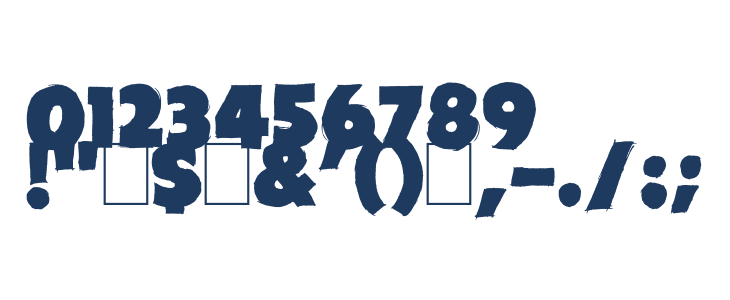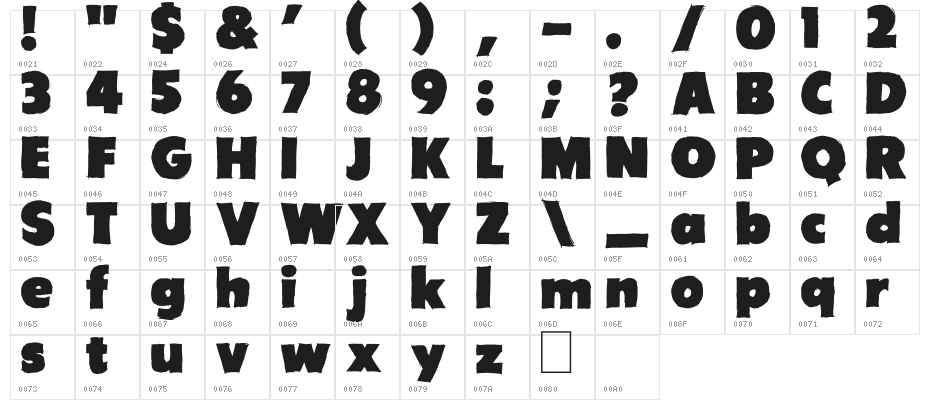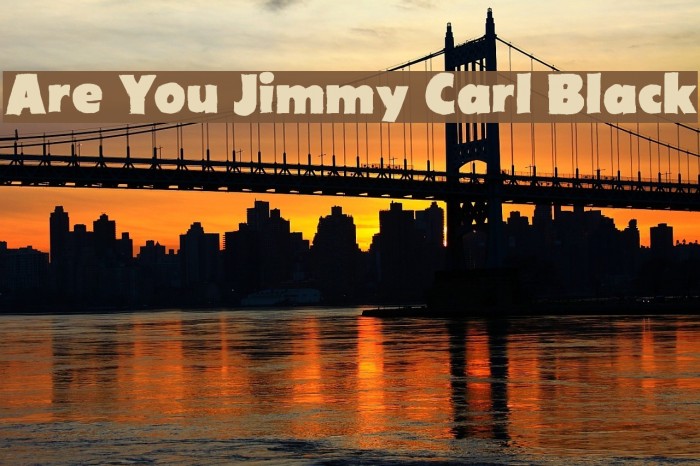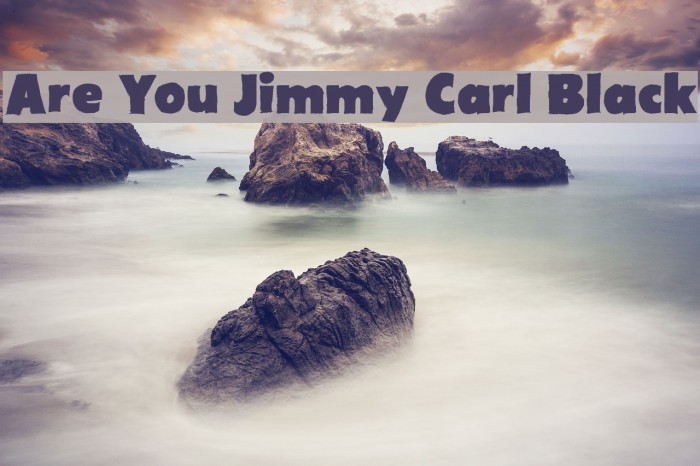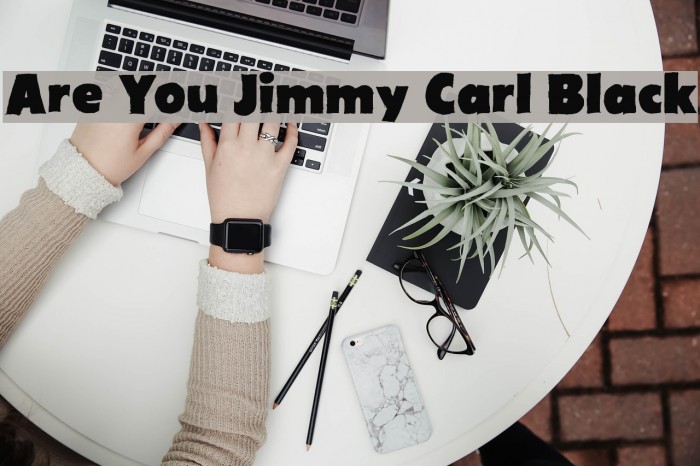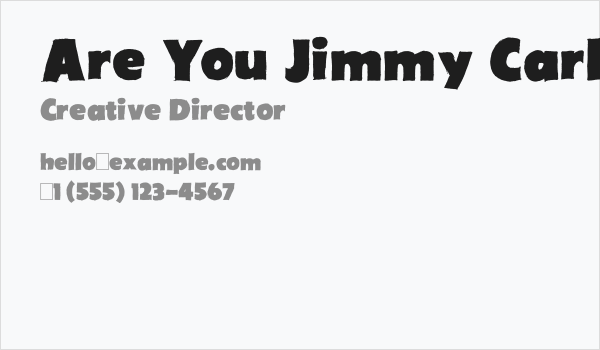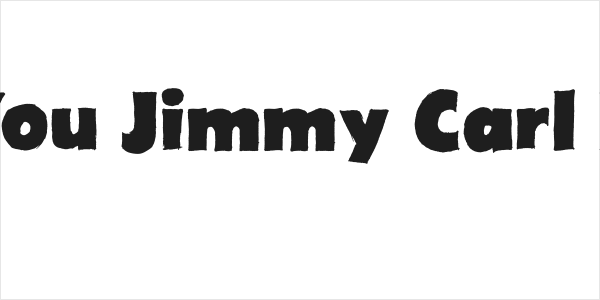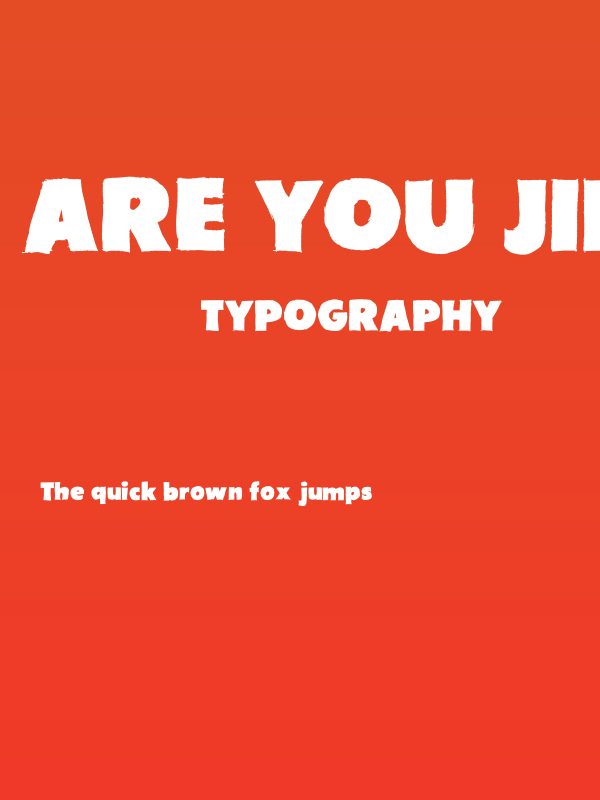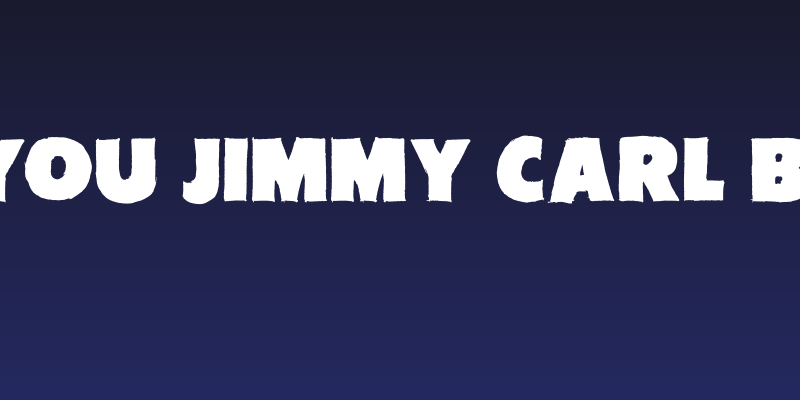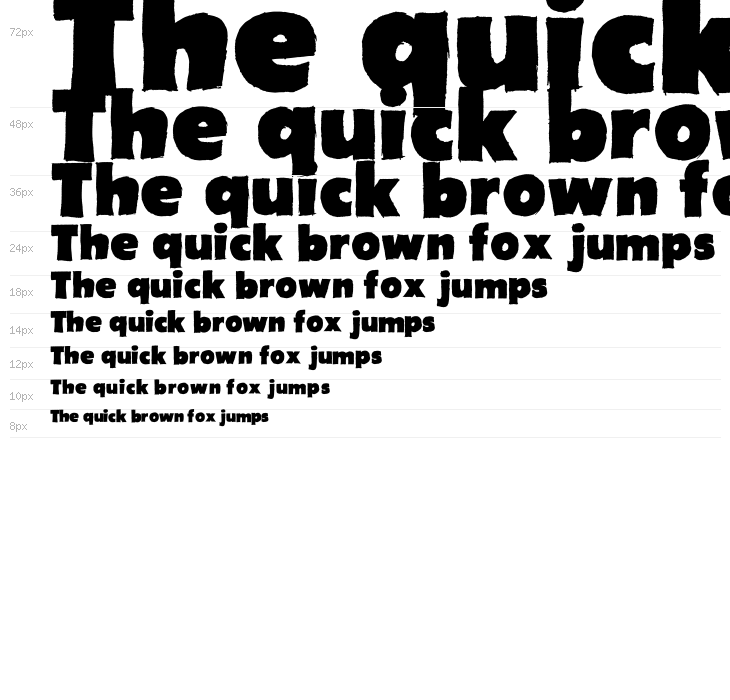
Are You Jimmy Carl Black Font
Are You Jimmy Carl Black Description
This bold and expressive font features thick, uneven strokes that give it a hand-painted appearance. The characters are slightly irregular, adding a playful and dynamic feel. The uppercase letters are robust and commanding, while the lowercase letters maintain a consistent weight, providing a cohesive look. The numbers are equally bold, ensuring they stand out in any design. Special characters are included, maintaining the same bold style. This font is ideal for projects that require a strong visual impact and a touch of creativity.
Proposed ProjectsPerfect for posters, album covers, branding, and any project needing a bold, artistic touch.